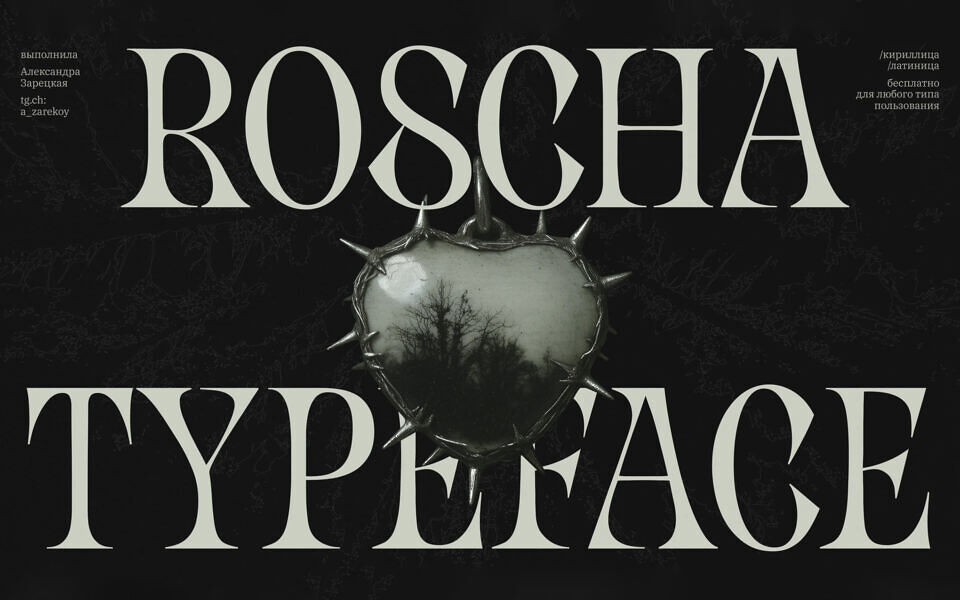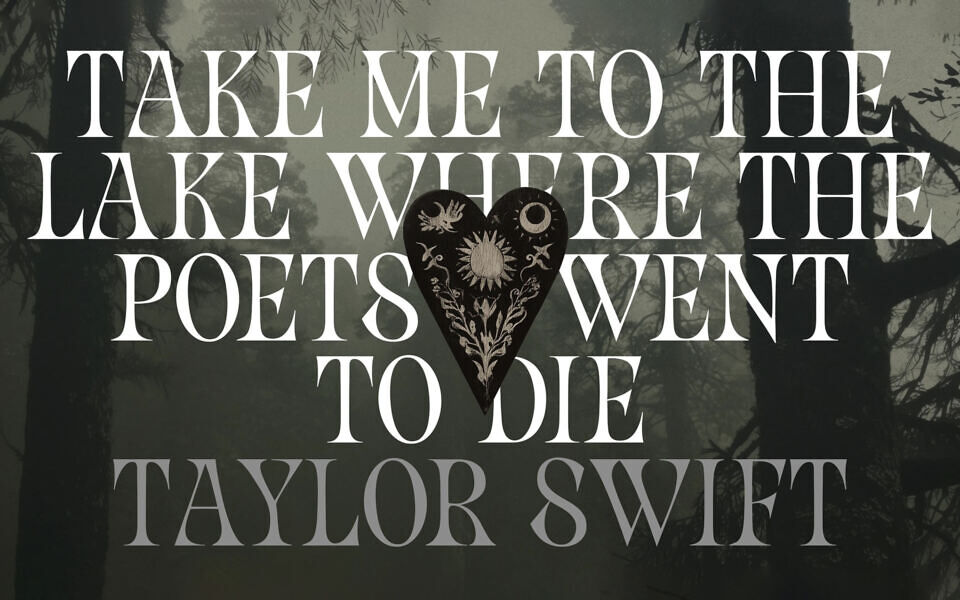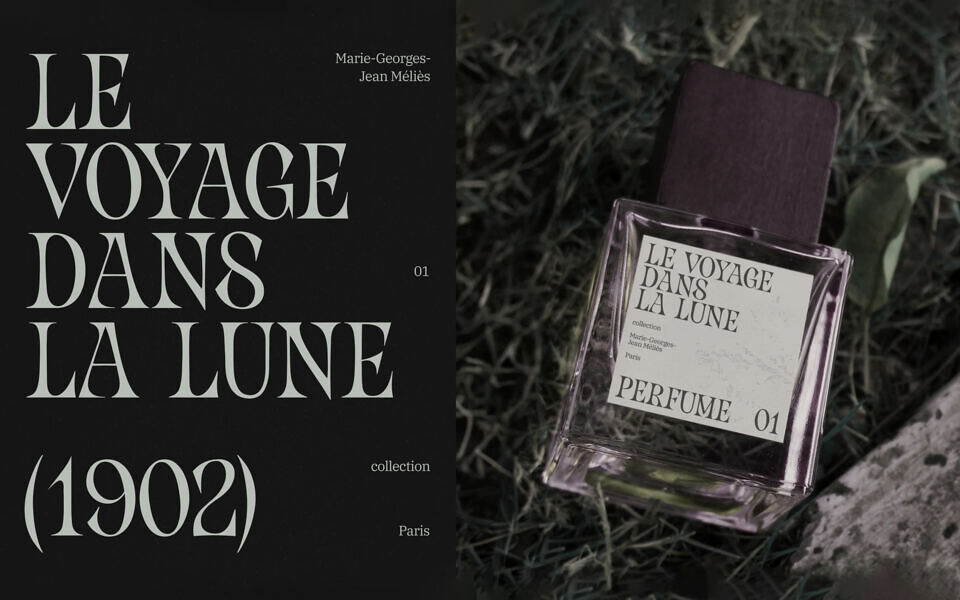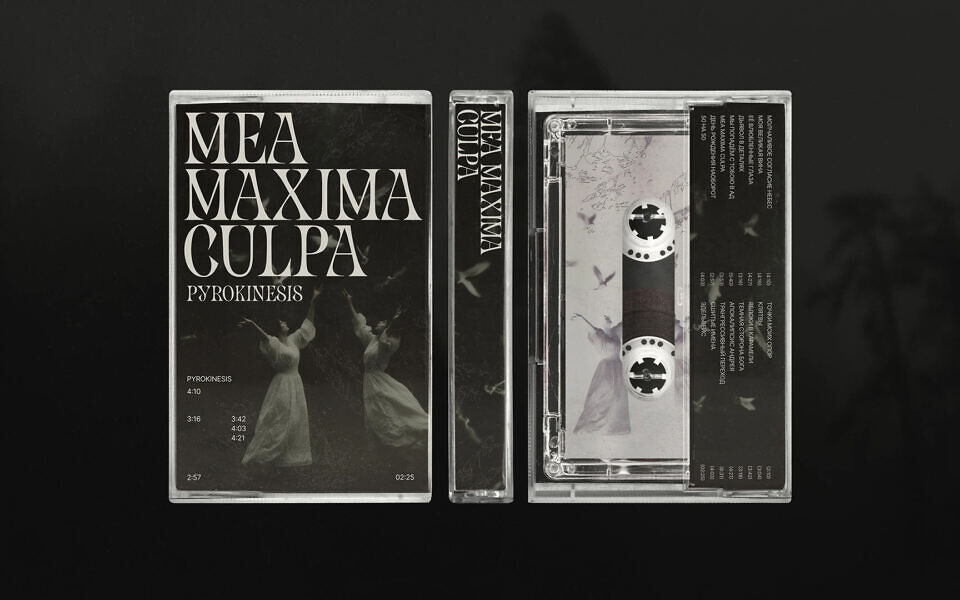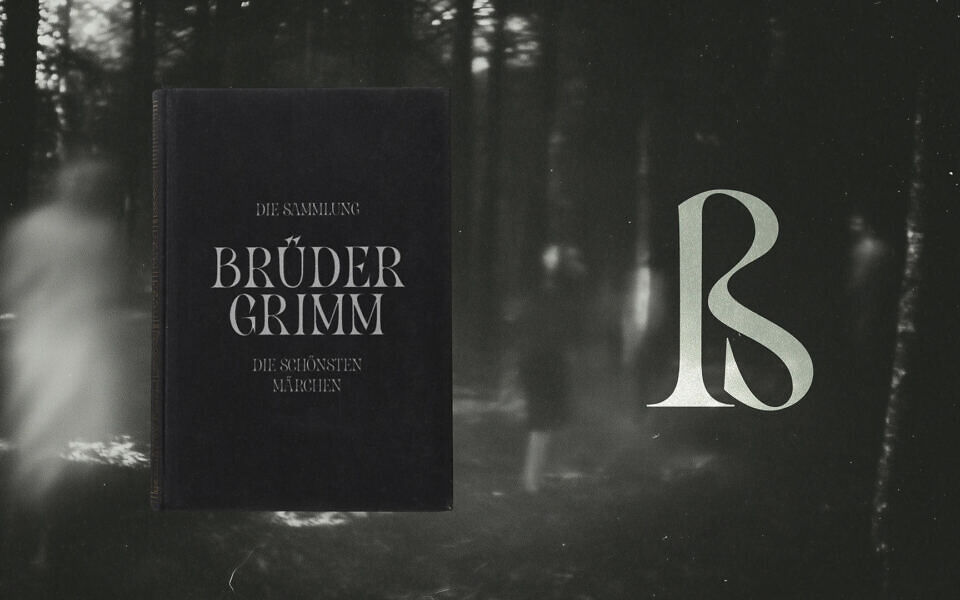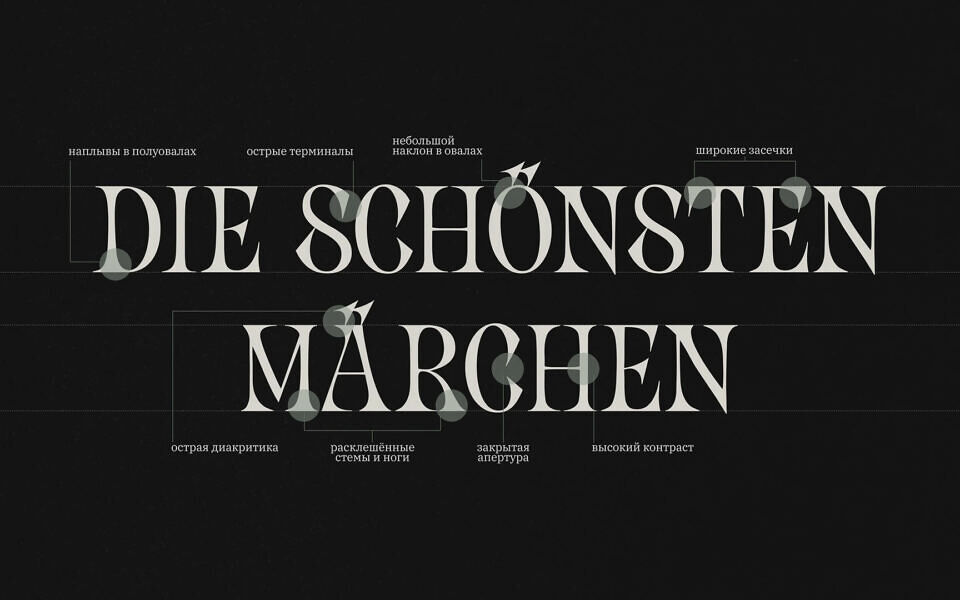
Roscha Font is a stylish modern serif typeface designed by Aleksandra Zaretskaya featuring tall, condensed letterforms and refined high-contrast strokes. Its elegant serifs and clean structure create a sophisticated, editorial look that works beautifully for headlines, logos, branding, and fashion-inspired designs.
The narrow proportions give text a strong visual impact while maintaining readability. Ideal for posters, magazines, invitations, and luxury branding, Roscha delivers a timeless yet contemporary aesthetic for designers seeking a distinctive and professional serif font.